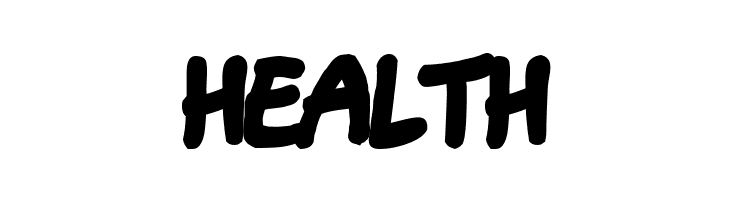
A bold, adventurous font with a jungle-inspired theme.
A bold, decorative font with shadow-like embellishments and a hand-carved appearance.
A decorative inline font with elegant, parallel line detailing.
A bold, expressive script font with playful curves and dynamic flow.
A bold, elongated font with a modern and sophisticated style.
An intricate and decorative script font with elegant swirls and loops.
An ornate and classic font with intricate, flowing letterforms and sharp serifs.
A playful, whimsical font with flowing, cursive-like strokes and decorative flair.
A bold, outlined font with a modern yet vintage style.
A high-contrast, modern-vintage font with bold uppercase and elegant lowercase letters.
A bold, brush-style font with an expressive and artistic appearance.
A whimsical, hand-drawn font with elongated, irregular letters.
A decorative font with rainbow-like arches formed by parallel lines.
A whimsical, decorative font with dotted patterns and playful details.